Taylor Swift’s “Lover” is the seventh studio album released by American singer-songwriter Taylor Swift. The album was released on August 23, 2019. It features 18 songs, including popular tracks like “Cruel Summer,” “Lover,” and “The Man.”
The album artwork and logo for Taylor Swift’s “Lover” album featured a distinct and visually appealing aesthetic. The album cover showcases Taylor Swift against a pastel-colored background, surrounded by floating clouds.
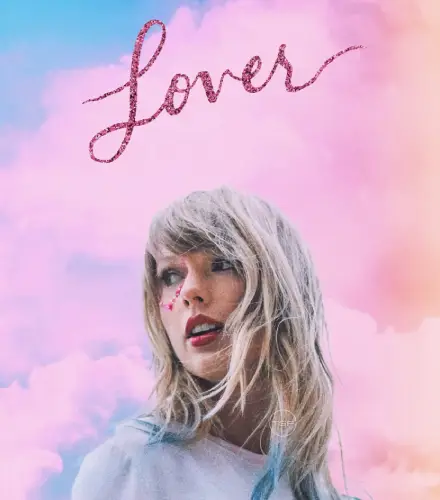
Let’s find out what font is used on the album cover.
The font used in the Taylor Swift “Lover” album is custom-made for the album. We found several fonts that are similar to the word “Lover” used on the album. Please note that you can try these fonts by using our font generator.
Satisfy Font
It’s a brush font designed by Sideshow that is also listed on Google Fonts. The font has a similar look to the Lover album. But it’s not exactly the same. Check out the difference in the below image.
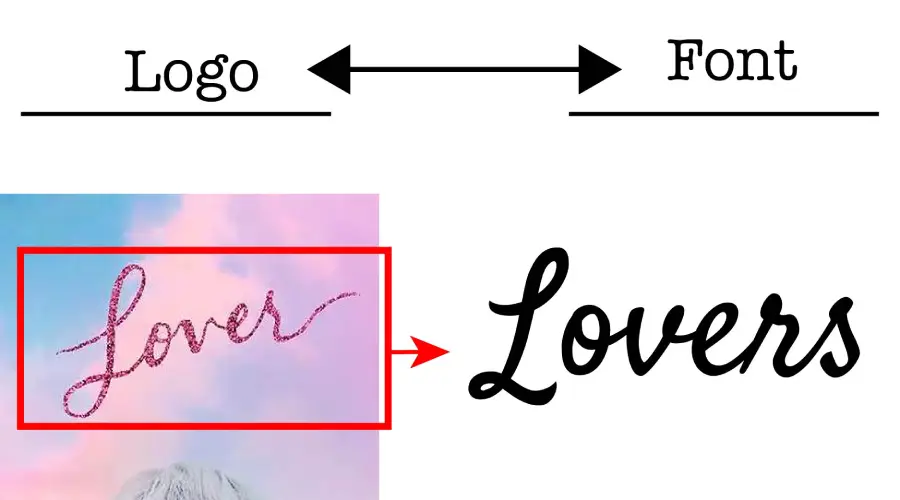
Mirabella Regular Font
Designed by Larin Type Co, Mirabella Regular has a similar look to the Lover font. Check out the below comparison image.
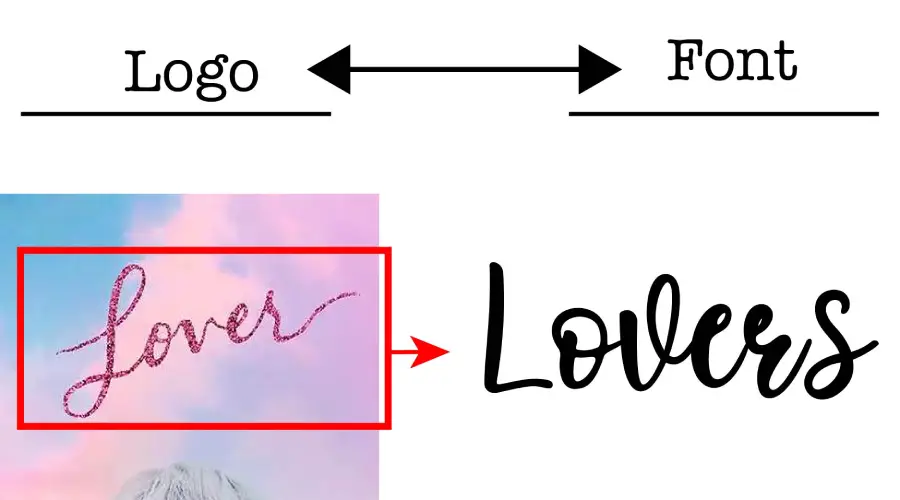
Heanffe Bold Font
It appears that the “Heanffe Bold” font by Letterara has a similar look to the font used on Taylor Swift’s “Lover” album. Check out the comparison image and decide for yourself.
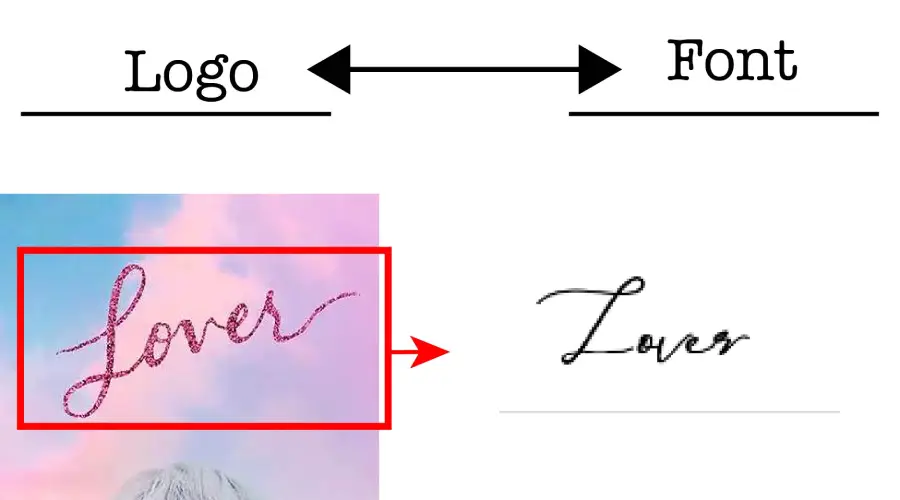
Kallinsha Font
Kallinsha font designed by Sibelumpagi is another similar-looking script font. Take a look at the image below to see for yourself.